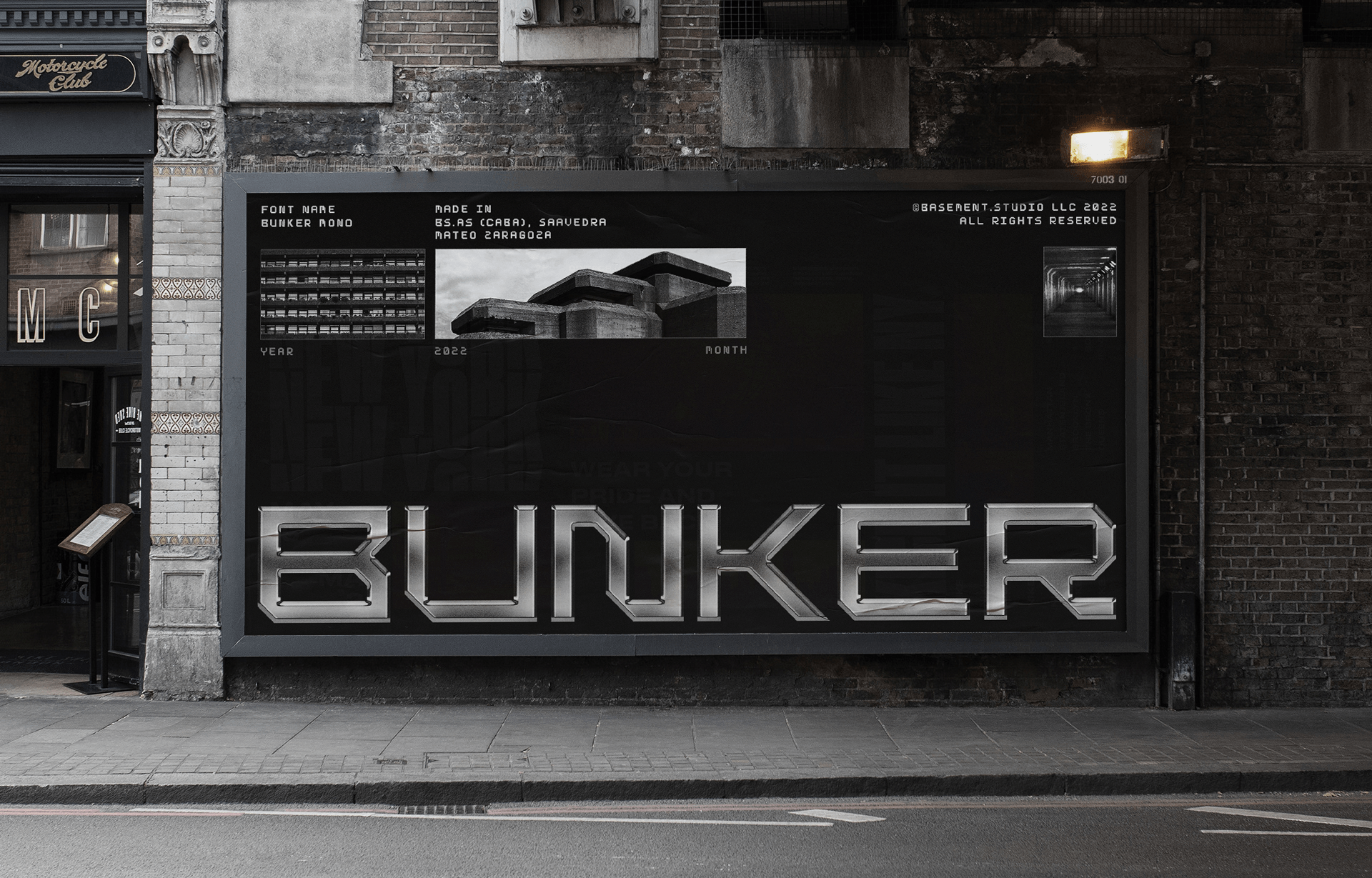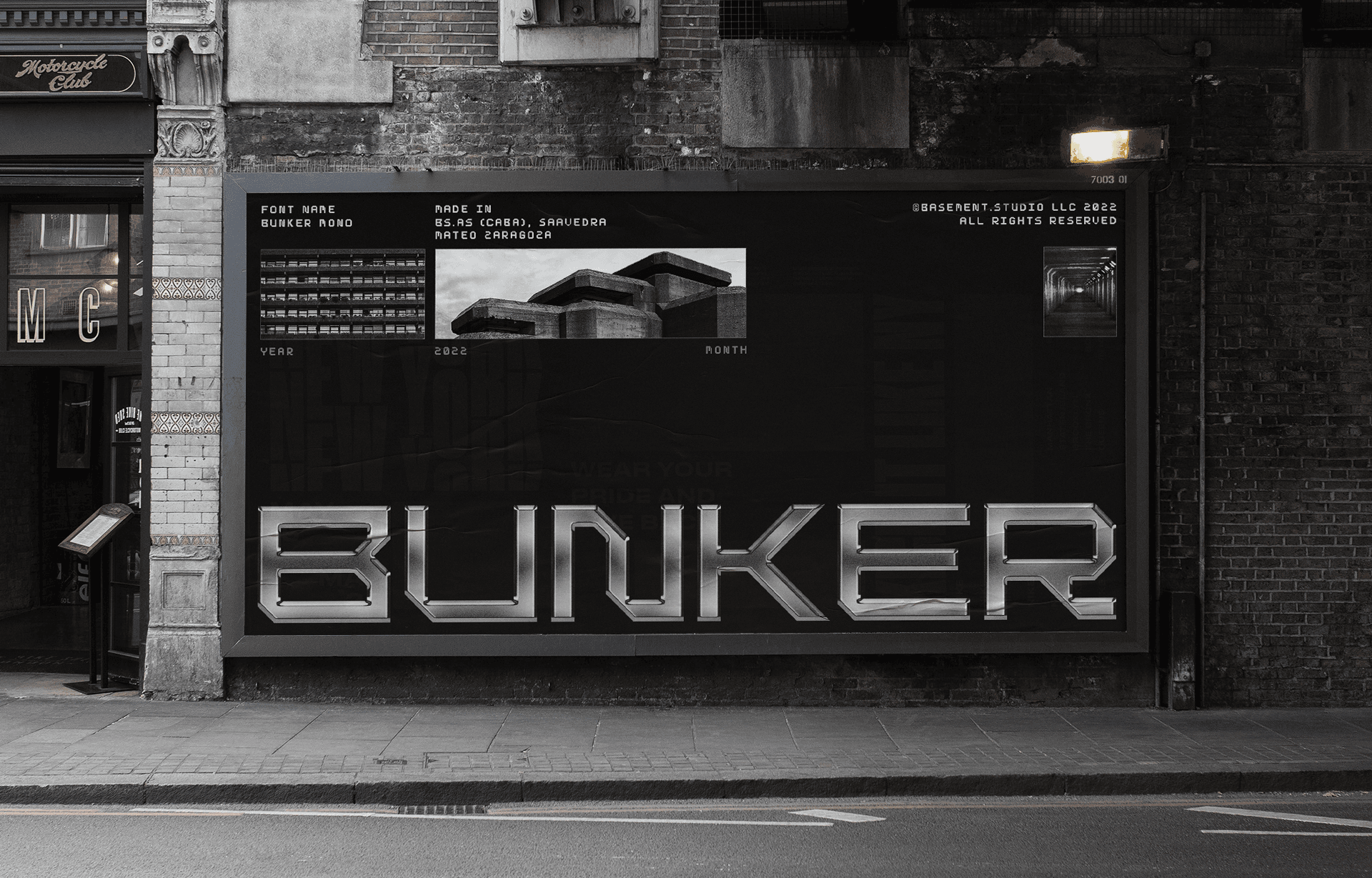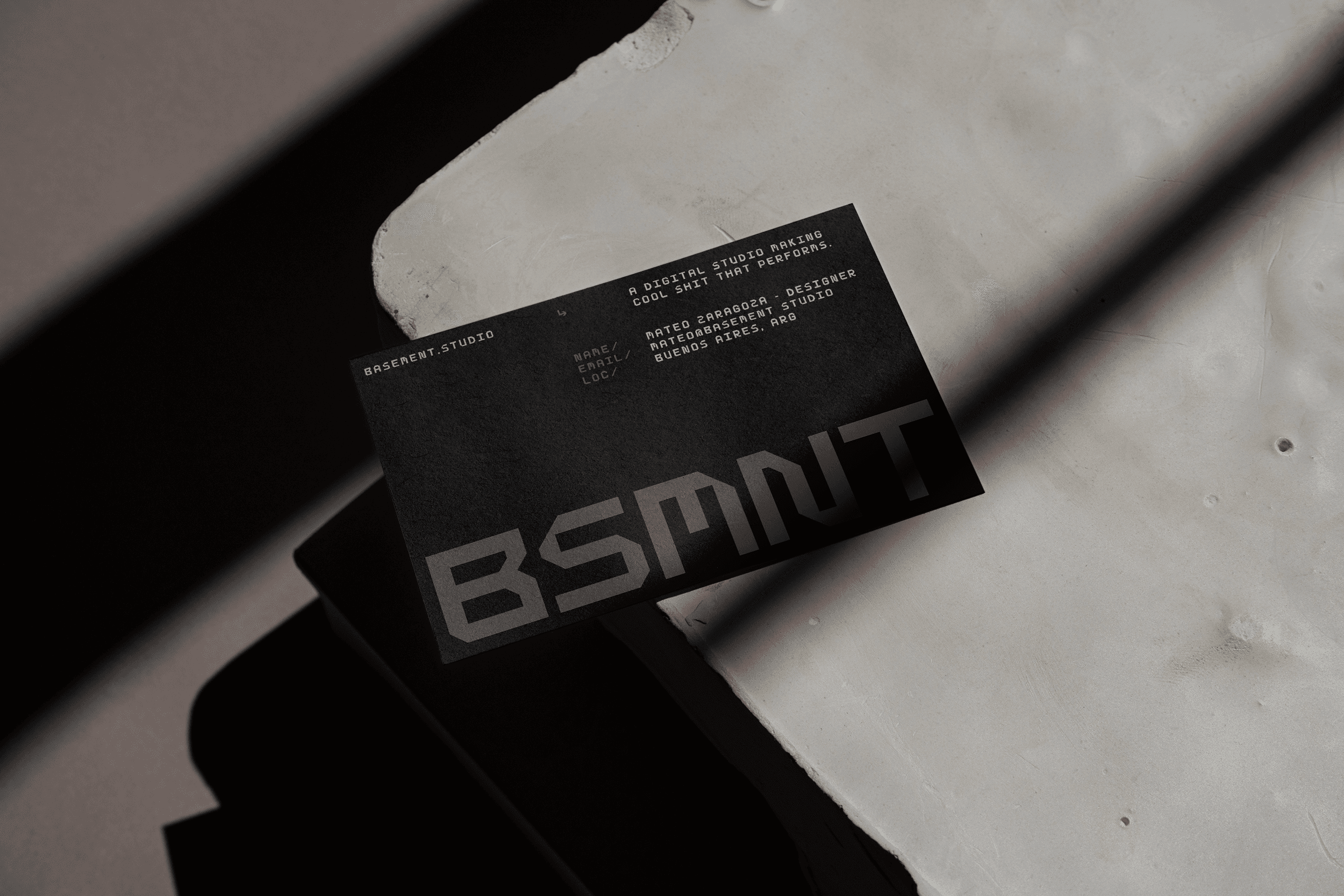
A brutalist & monospaced typeface, characterized by its futuristic, monolithic, & 'blocky' appearance with a rigidly geometric style.
stylistic set 01
iíîïì
stylistic set 02
R
stylistic set 03
r
DescriptionA modular & monospaced typeface, characterized by its futuristic, monolithic, & 'blocky' appearance with a rigidly geometric style. Brutalist in nature, the letterforms follow a strict grid with slight optical adjustments to certain angles and strokes to guarantee a more balanced design.